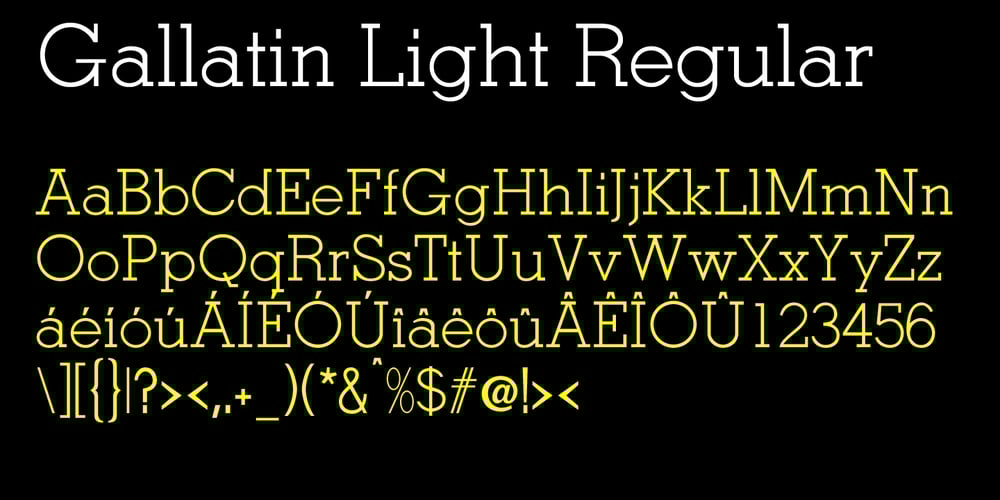
Gallatin Light Font Family was designed by Jordan Davies and published by Wooden Type Fonts. Gallatin Light contains 1 styles and family package options. A light weight slab serif font, useful for posters and large ads, based as it is on wooden fonts designed in the 19th century.